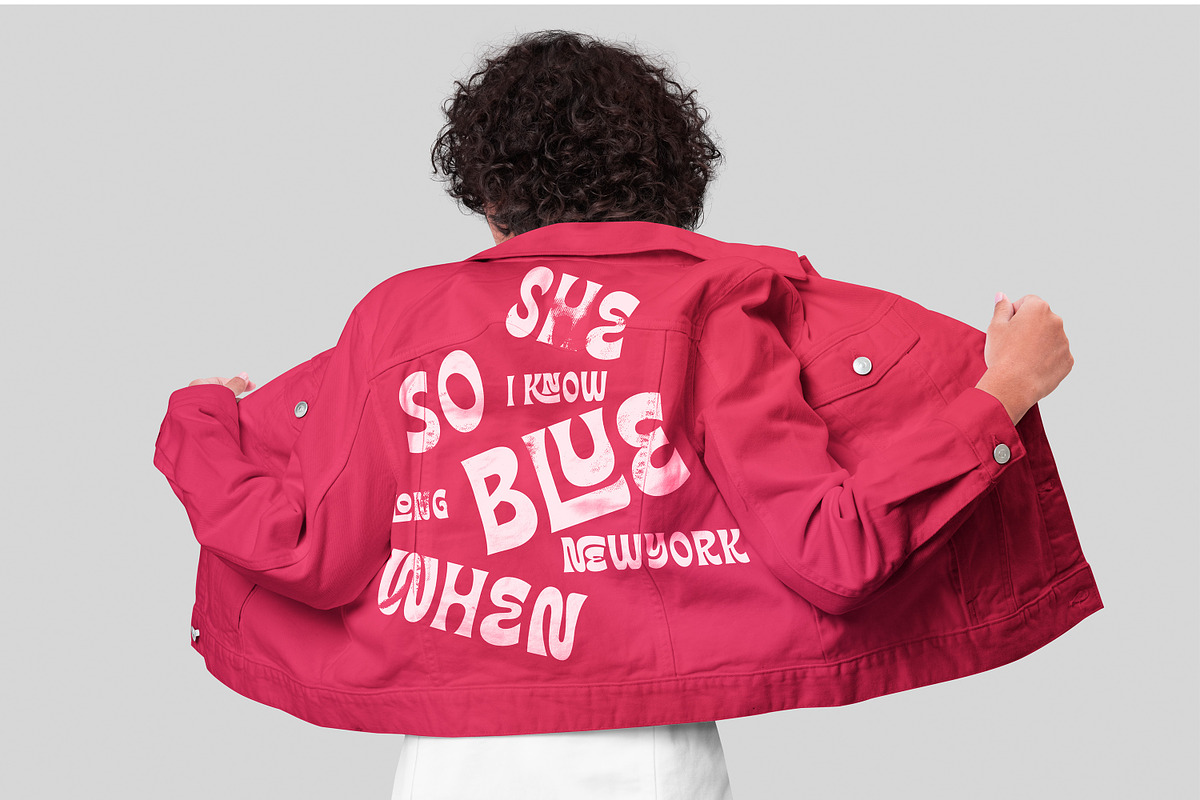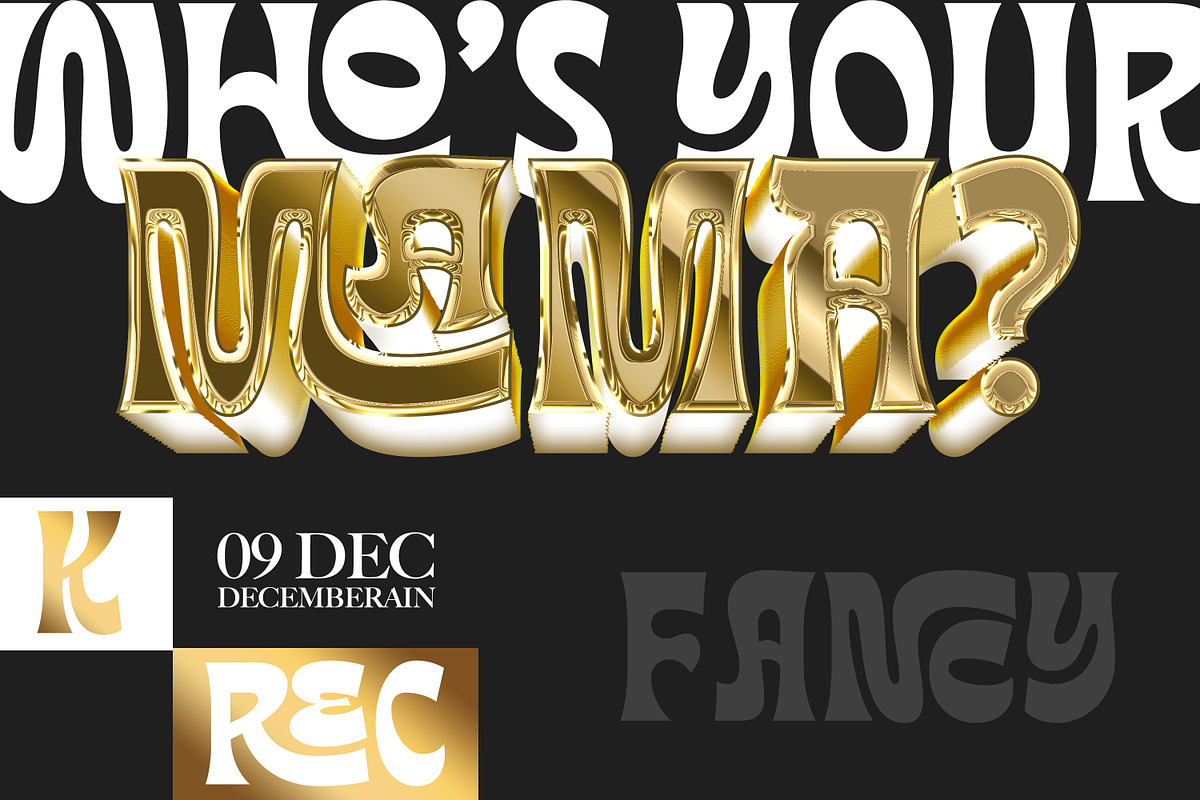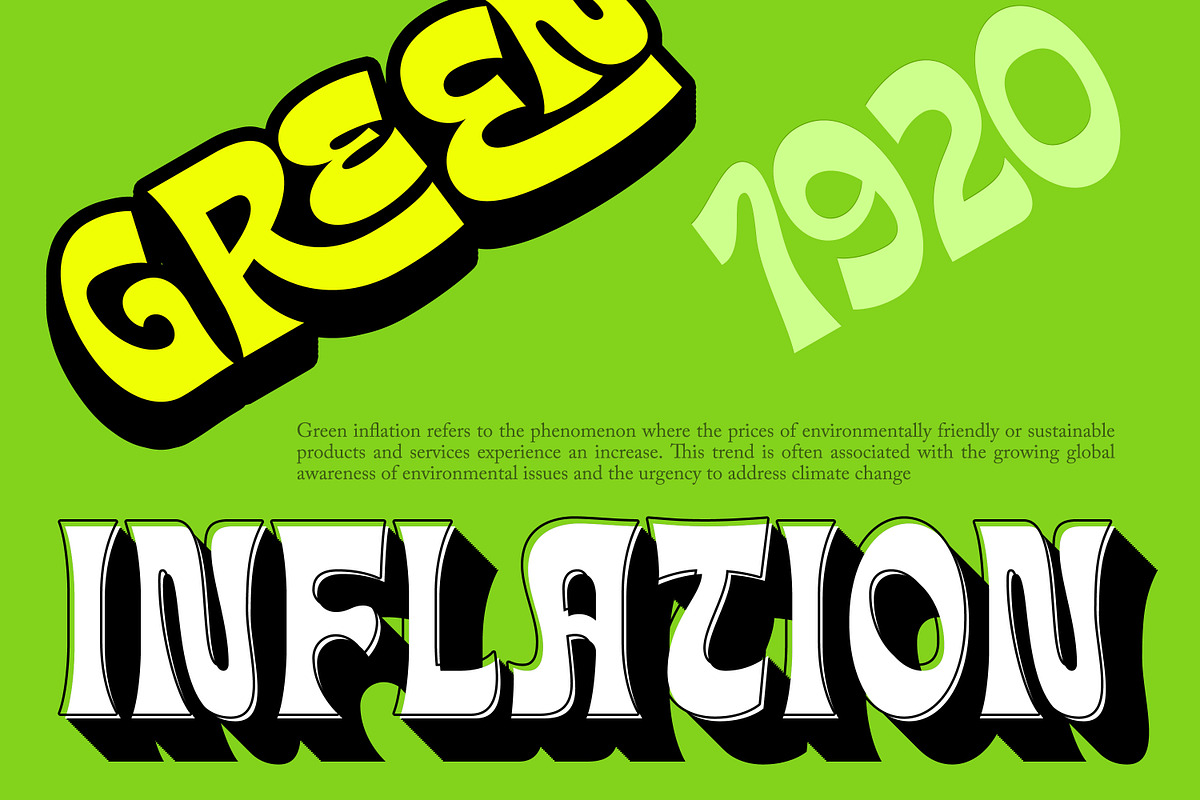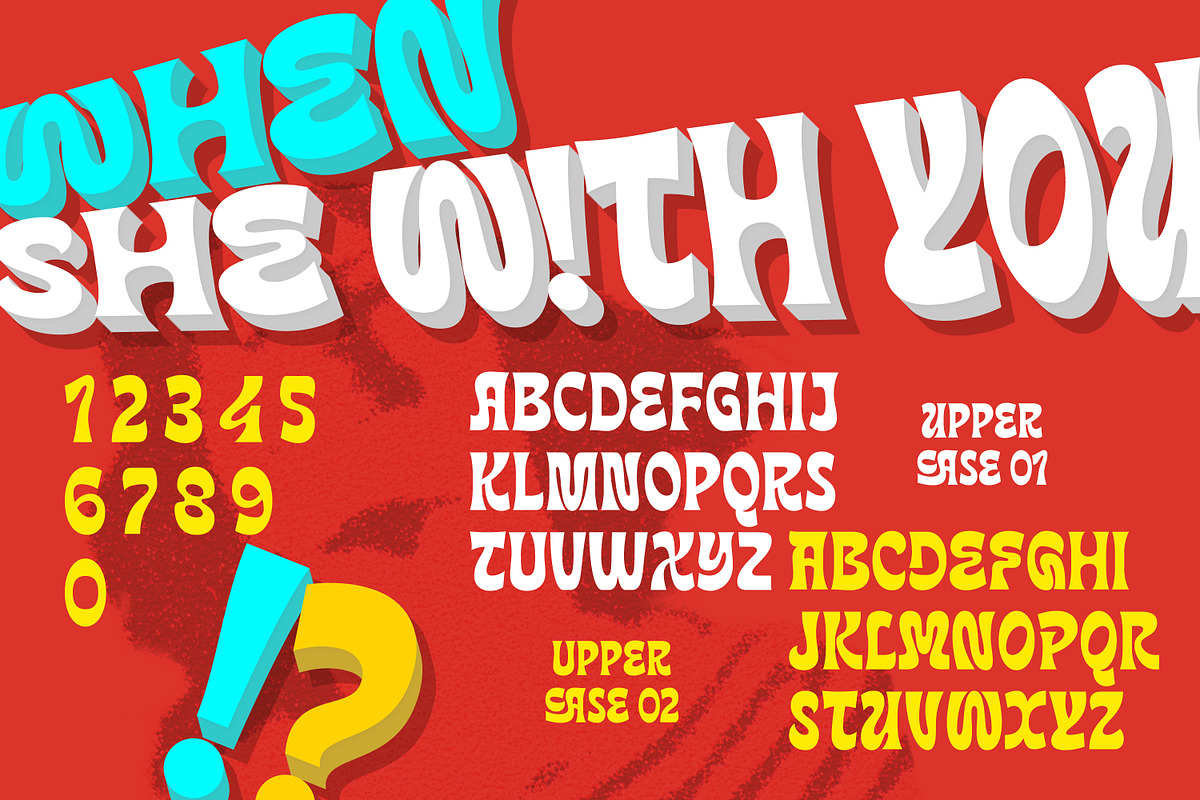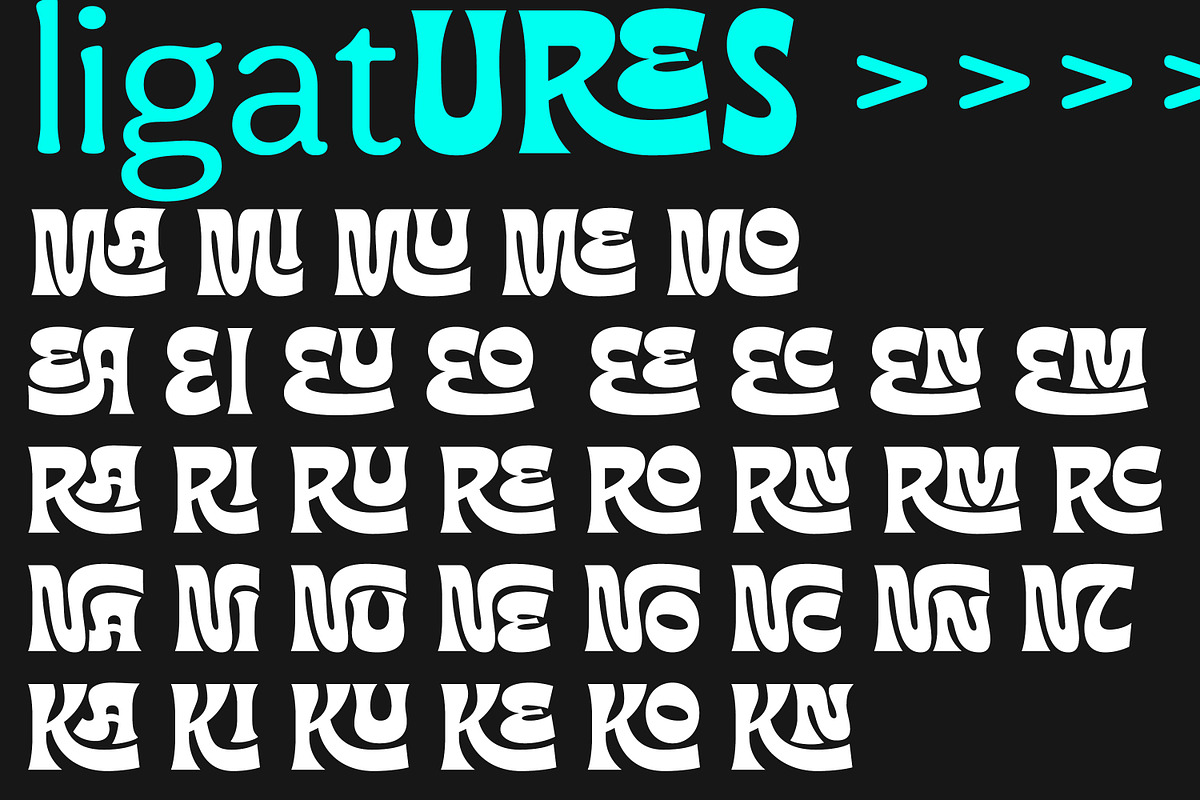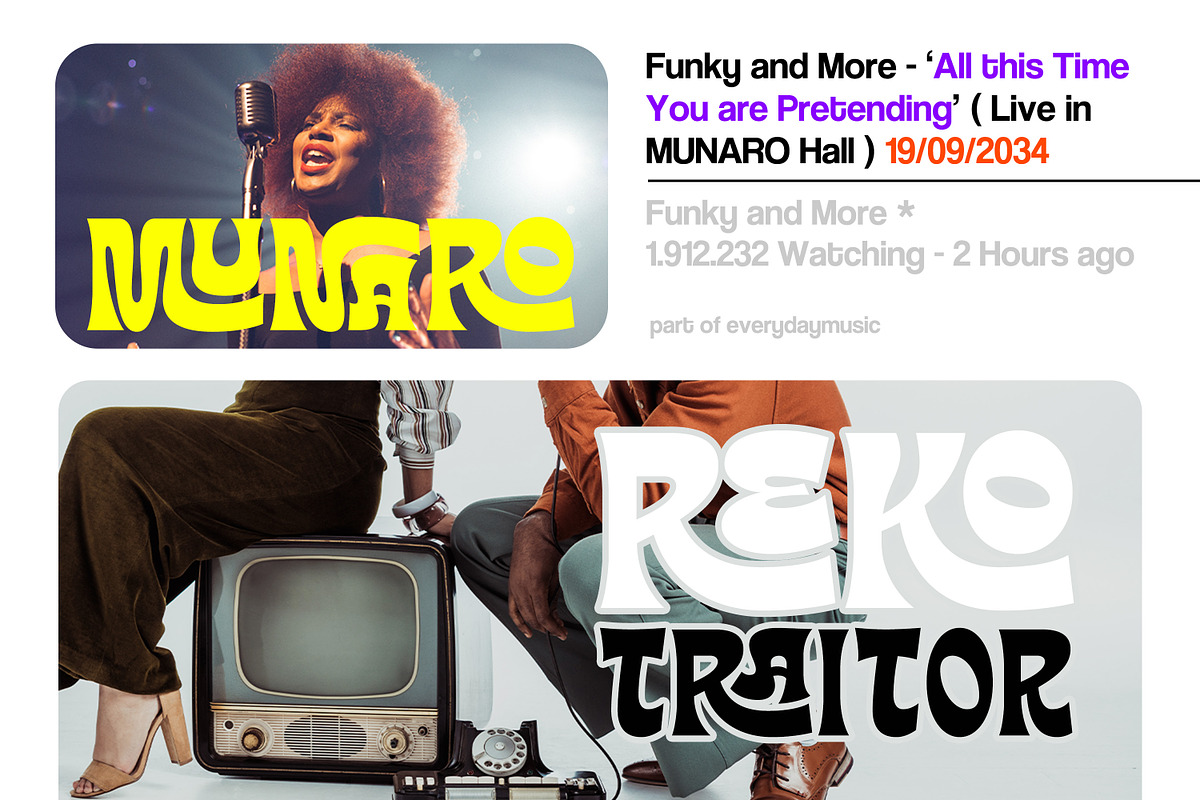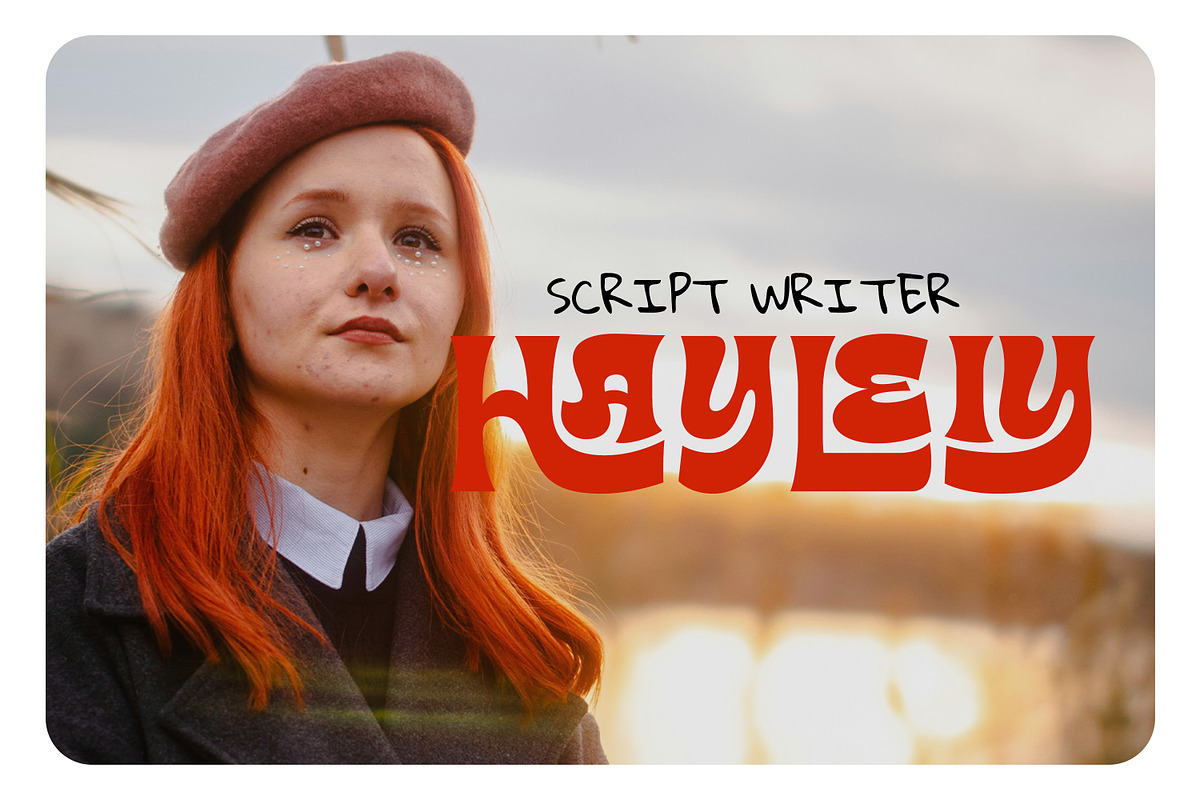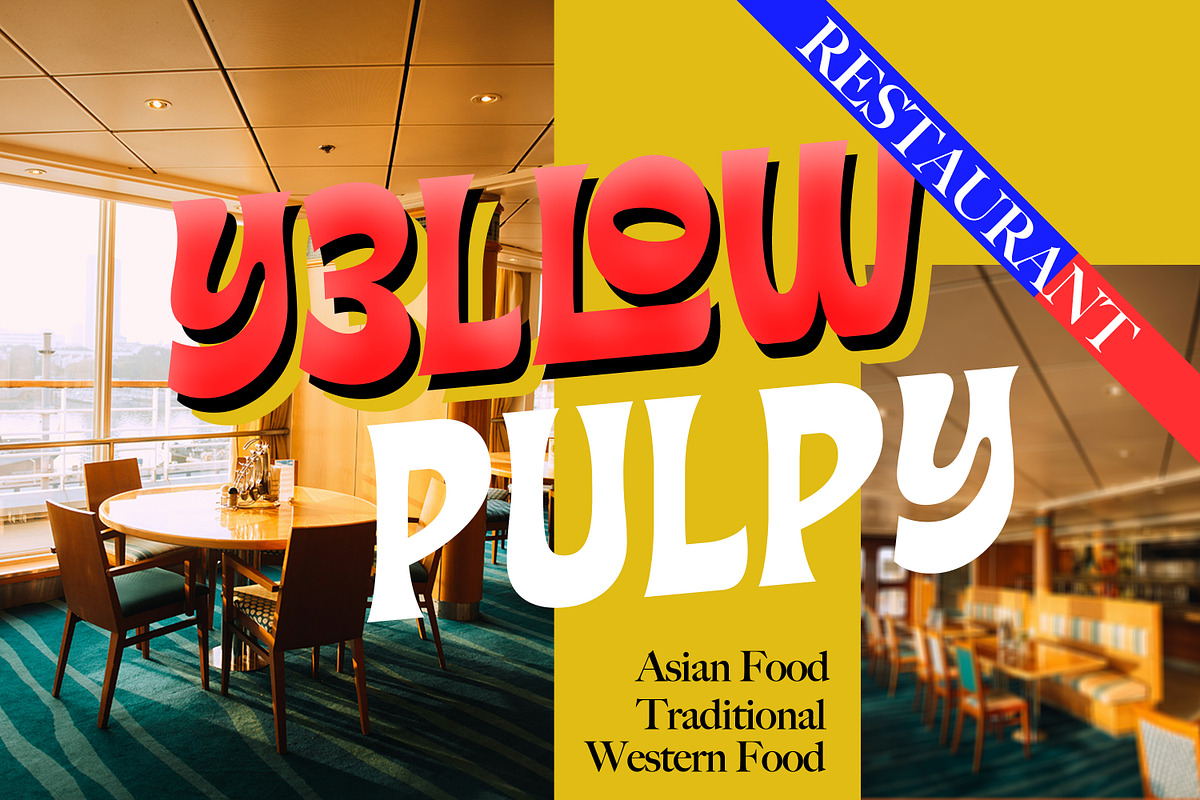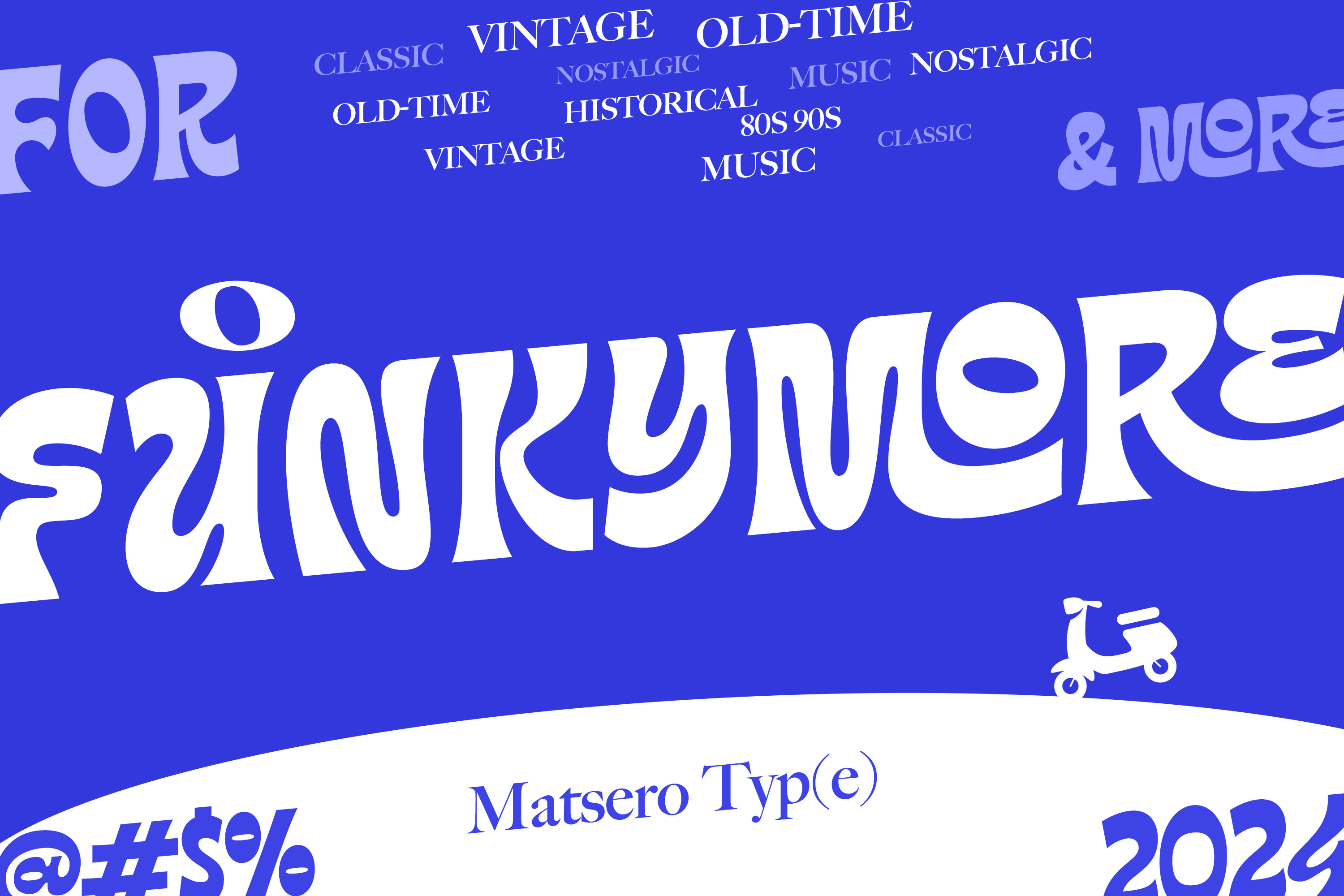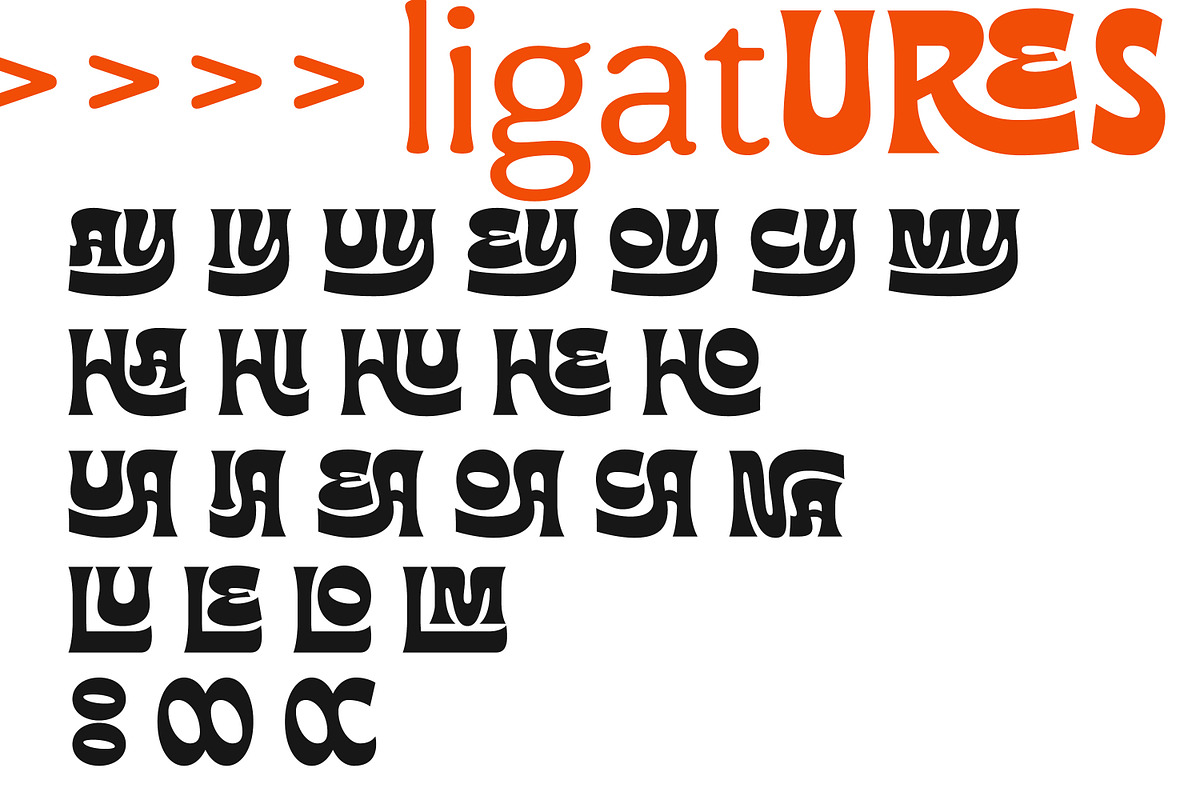
Funkymore - Vintage Font
Funkymore - Historical, Vintage, Old-Times, Classic
Funkymore effortlessly blends the essence of bygone eras with a contemporary flair, embodying timeless elegance in every curve and serif. This vintage historical font, aptly named Funkymore, transports users to a place where nostalgia meets modern design.